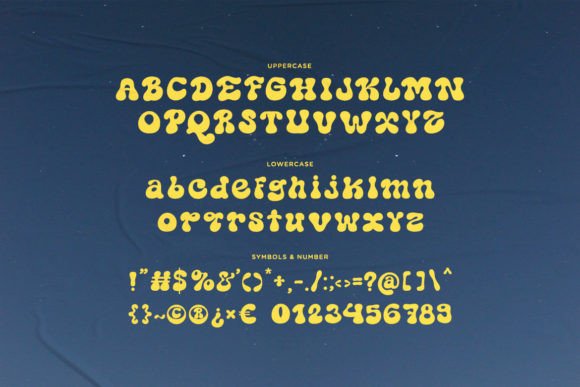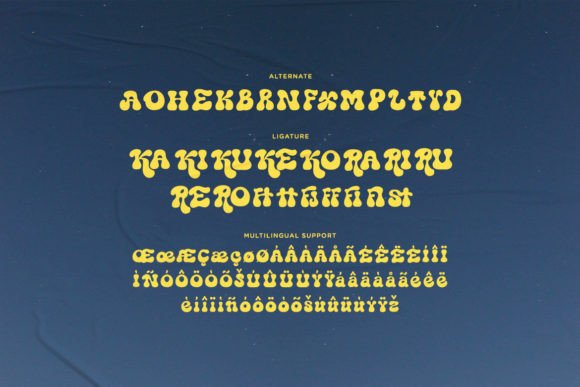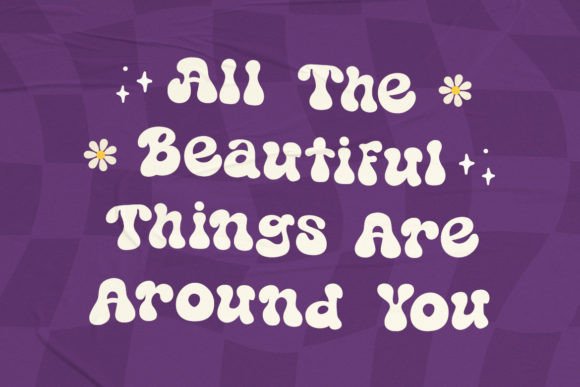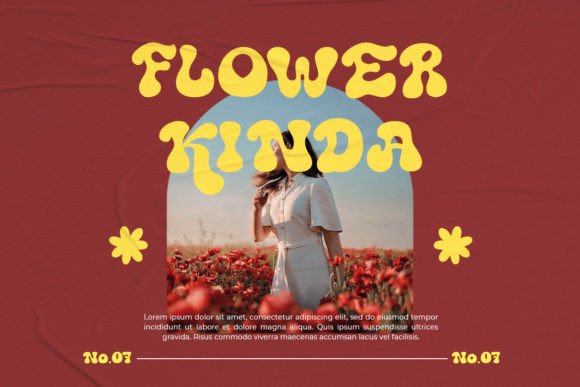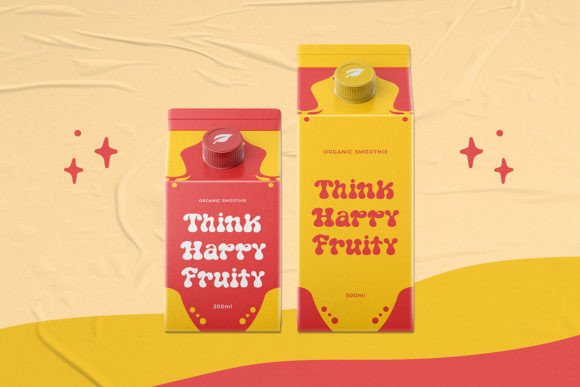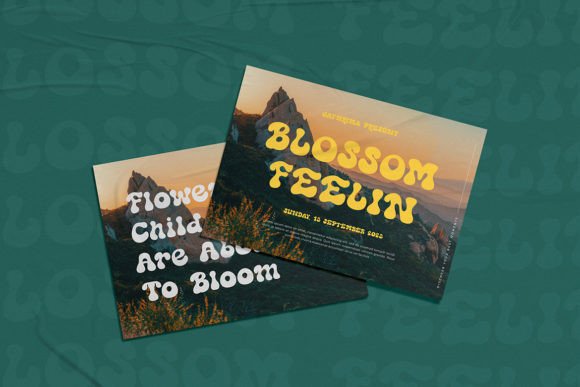
Introducing Gathrima: The Groovy Font That Brings Funky Vibes
I’ll never forget the design project that led me to discover Gathrima. I was working on a retro-themed poster for a client’s vintage-inspired clothing line, and I was struggling to find the perfect font. The client wanted something that would evoke the fun, carefree spirit of the 70s and 80s, but I was coming up blank. That’s when I stumbled upon Gathrima, and it was love at first sight! ✨
A Personal Review of Gathrima
- ✨ Gathrima’s playfully nostalgic vibe is perfect for retro-inspired designs
- ✅ The font’s retro aesthetic is incredibly versatile and can be used for a wide range of design projects
- 🎉 Gathrima’s unique character set includes a range of glyphs and stylistic alternates that add an extra layer of creativity to your designs
- 💻 The font is easy to read, even at smaller sizes, making it perfect for body text or headings
While Gathrima is an amazing font, there are a few things to keep in mind 🤔:
- ⚠️ Some of the more intricate glyphs and stylistic alternates can be a bit finicky to access, especially for beginners
- ⚠️ Gathrima’s bold weights can be a bit overpowering if not used carefully
The Backstory Behind Gathrima
Gathrima was designed by a team of creatives who wanted to capture the fun, carefree spirit of the 70s and 80s. Inspired by vintage posters, vinyl records, and retro video games, Gathrima is the perfect font for anyone who loves a little nostalgia with their design. The font’s unique character set and stylistic alternates were carefully crafted to evoke the playful, experimental vibe of the era.
Q: What is Gathrima’s personality?
A: Gathrima is a groovy font with a playfully nostalgic vibe. It’s perfect for designs that need a fun, retro touch!
Q: Is Gathrima easy to read?
A: Yes! Despite its playful, retro vibe, Gathrima is surprisingly easy to read, even at smaller sizes.